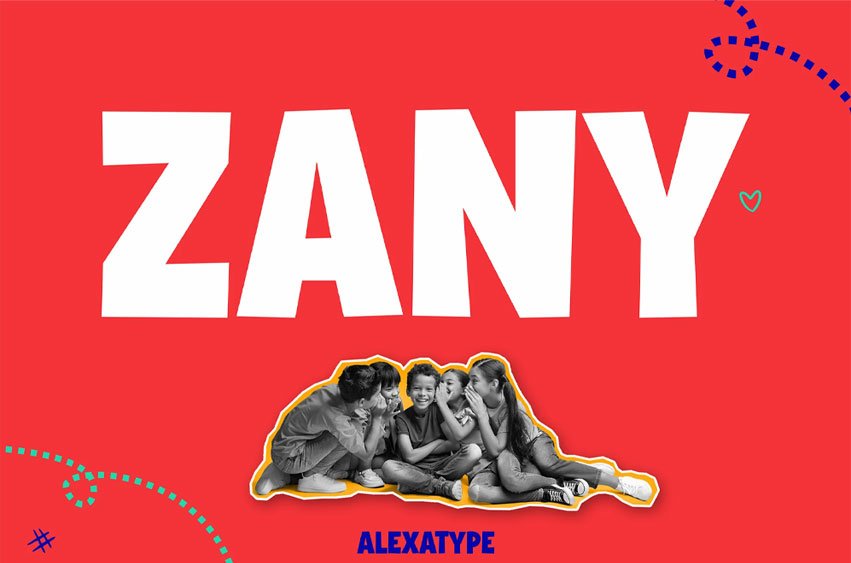
Zany Font is a playful sans-serif display font that doesn’t just speak—it shouts with joy. With its chunky, high-contrast shapes and vibrant personality, this font is built for those who want their designs to stand out and speak fun.
Inspired by kids’ laughter, energetic activities, and colorful worlds, ZANY works perfectly for school events, kids’ packaging, educational content, snack branding, and anything that deserves a little extra POP. Whether you’re designing a back-to-school campaign, cheerful product packaging, or kid-themed media, ZANY brings a sense of enthusiasm and joy that’s hard to ignore.
• Playful & Friendly Vibe – Big, bold characters that express joy and youthfulness
• Easy-to-Read Shapes – Designed to maintain clarity at any size
• All Caps Style – Perfect for loud messaging and energetic emphasis
• High Contrast & Color-Ready – Pairs beautifully with colorful backdrops
ZANY is perfect for children’s product packaging, snack brands, educational posters, activity books, event flyers, and anything that targets playful, youthful audiences. It also works well for social media creatives, YouTube thumbnails, and merch for fun-focused brands.